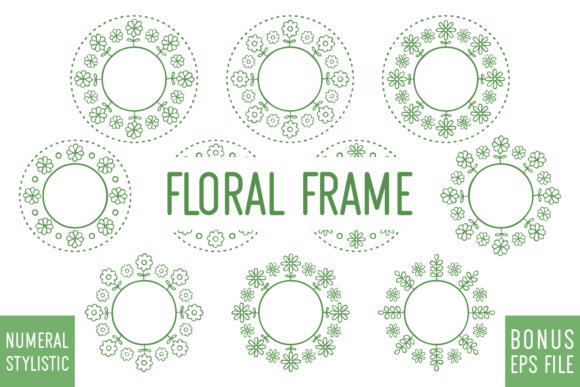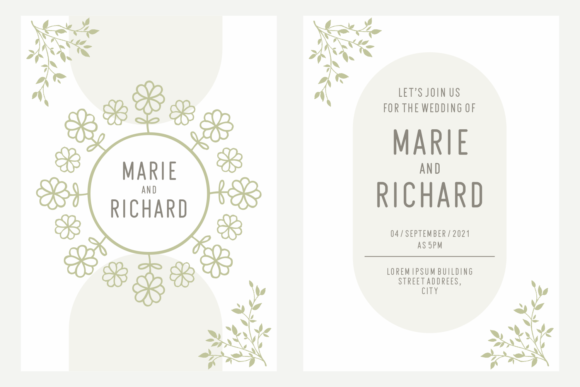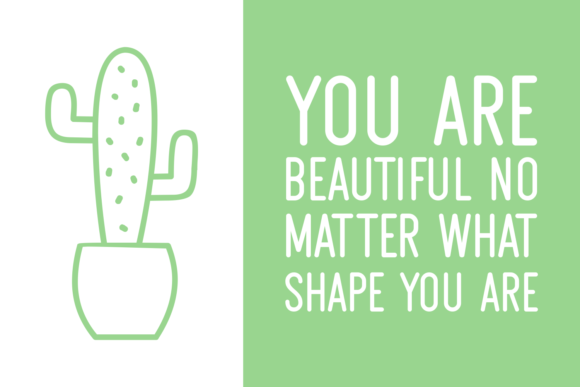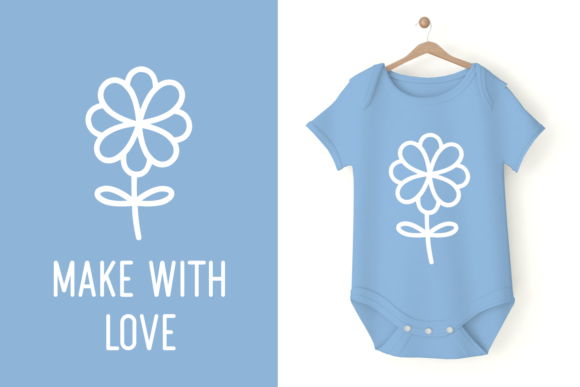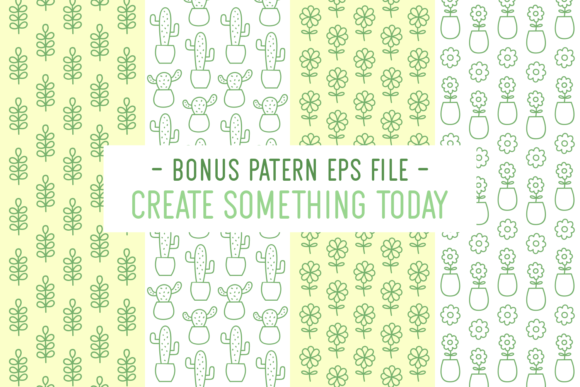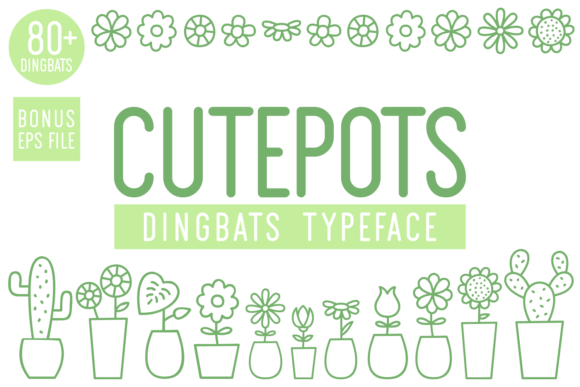
Cute Pots Font: The Ultimate Design Companion for Floral and Crafty Projects
Are you a designer, crafter, or DIY enthusiast looking for a unique and versatile font to elevate your creative projects? Look no further than the Cute Pots Font, a delightful dingbats font that features an adorable collection of clipart, including flower pots, cactus pots, floral frames, and an assortment of cute flowers. In this article, we’ll dive into the world of Cute Pots Font, exploring its features, uses, and benefits, and why it’s an essential tool for anyone working on floral, crafty, or graphic design projects.
What is Cute Pots Font?
Cute Pots Font is a dingbats font, which means it’s a type of font that uses symbols, shapes, and images instead of traditional letters and characters. This font is specifically designed to bring a touch of whimsy and charm to your designs, with a focus on floral and garden-themed elements. The font includes a wide range of clipart images, such as:
• Flower pots in various shapes and sizes
• Cactus pots for a touch of desert charm
• Floral frames to add a delicate touch
• Assorted cute flowers, from roses to daisies
These images can be used to create stunning designs, from logos and branding materials to social media graphics, shirt designs, and more.
Who is Cute Pots Font for?
Cute Pots Font is perfect for:
• Designers working on floral, garden, or craft-related projects
• Crafters and DIY enthusiasts creating handmade cards, gift tags, and other paper crafts
• Business owners in the floristry, gardening, or craft industries looking for unique branding elements
• Educators and parents creating educational materials, such as coloring books and activity sheets
How to Use Cute Pots Font
Cute Pots Font is incredibly versatile and can be used in a variety of design applications, including:
• Designing previews and covers for digital products or print-on-demand services
• Creating logos and branding materials for florists, gardeners, or craft-related businesses
• Designing shirt and apparel designs for crafty or floral-themed brands
• Creating coloring books, activity sheets, and other educational materials for kids
• Developing social media graphics, blog posts, and website content for crafty or floral-related niches
Benefits of Using Cute Pots Font
So why choose Cute Pots Font for your design projects? Here are just a few benefits:
• Unique and eye-catching designs: With Cute Pots Font, you can create designs that stand out from the crowd and capture the attention of your audience.
• Time-saving: The font’s extensive library of clipart images saves you time and effort, allowing you to focus on the creative aspects of your project.
• Versatility: Cute Pots Font can be used in a wide range of design applications, from logos and branding to social media graphics and educational materials.